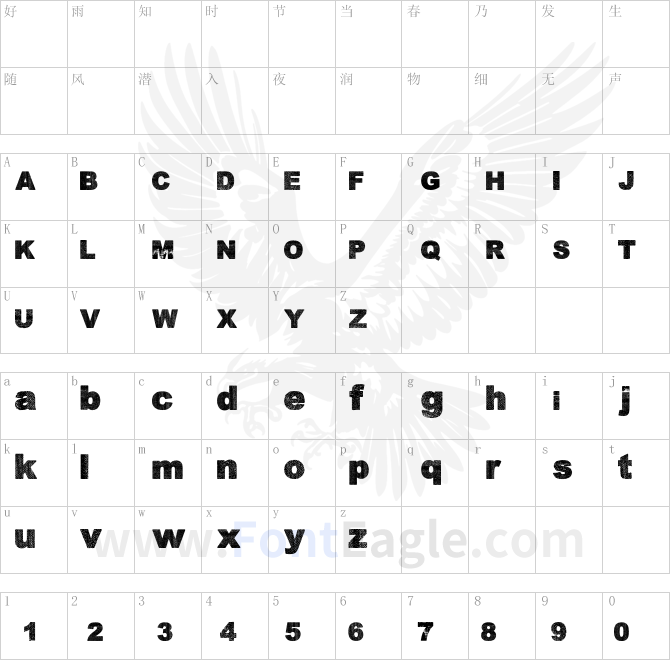
Dabre-Grunge is a great font, widely used in graphic design, single-page menu design, poster design and other fields, and is deeply loved by designers.Dabre-Grunge download.